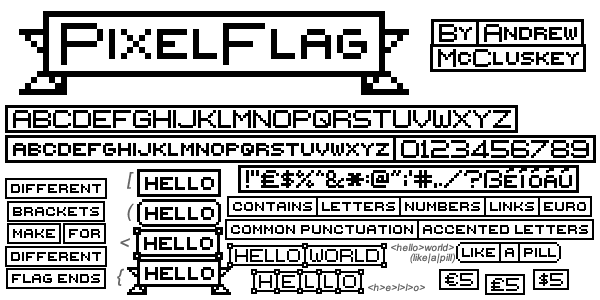
Free for all use including commercial. Credit to me, letting me know where you've used my work, and even donations, are all highly appreciated but not required to use the font. With this font, you can use different types of brackets to achieve different endings. [] will produce rectangular endings, () will be rounded endings, {} are folded ribbon endings, and <> are rectangular with dots on corners. | (horizontal line) can be used to produce a line down the flag, space will produce a space in it. Experiment for best effects. Seems to produce the best effect at certain sizes only, and when NOT antialiased. Last note: to positively influence how it looks in previews, the font is called {PixelFlag} rather than just PixelFlag. As a result, it may appear at the top or bottom of your list of fonts when installed, rather than in the Ps. |